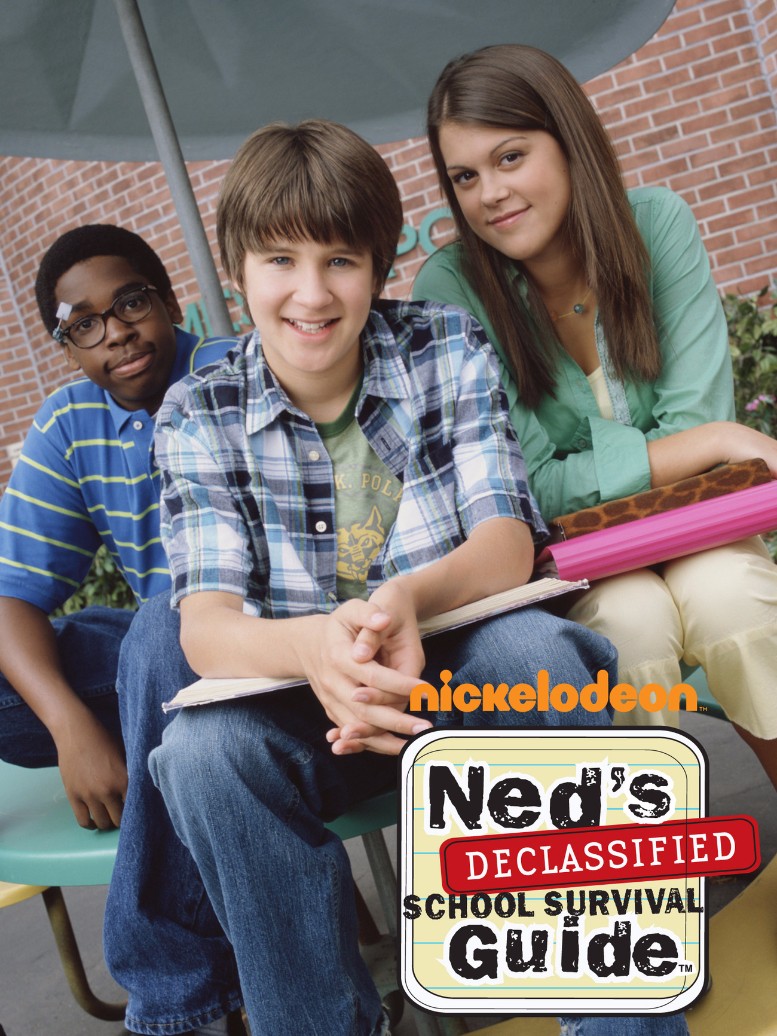
Ned's Declassified Font
ComedyNed’s Declassified School Survival Guide is an American live-action sitcom that aired on Nickelodeon from 2004 to 2007. The show follows the life of Ned Bigby and his best friends Moze and Cookie as they navigate through the daily struggles of middle school.
The television show's title features two different fonts; Base 12 Serif for the "Declassified" text and Frankie from Type-Ø-Tones for the other text on the poster. The Base 9 & 12 font family, designed by Zuzana Licko, includes both sans serif and slab serif styles and was published by Emigre.